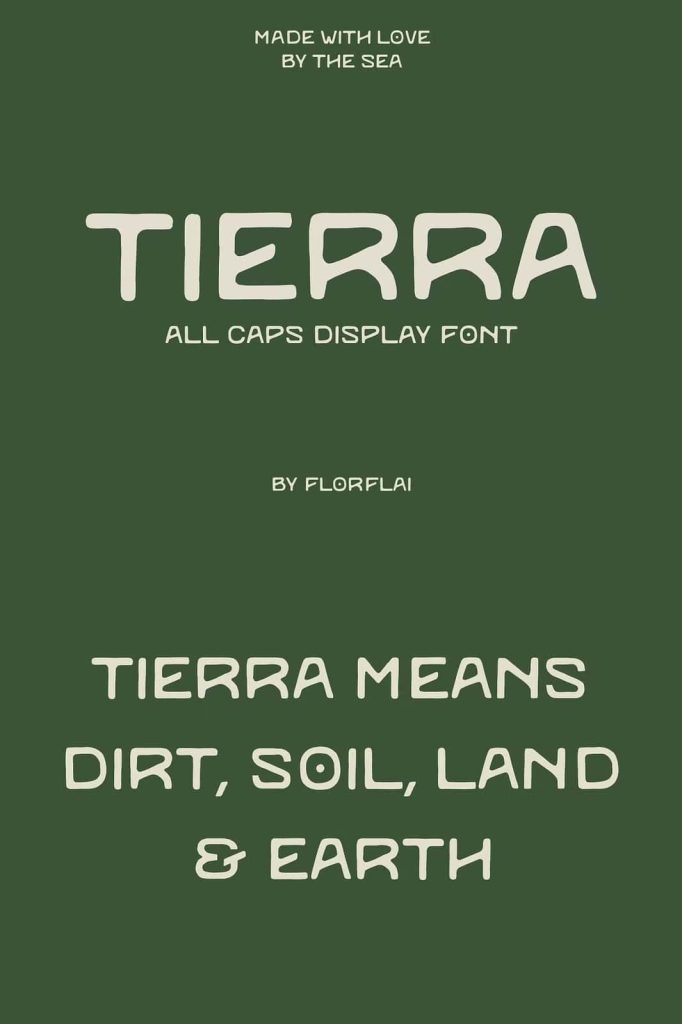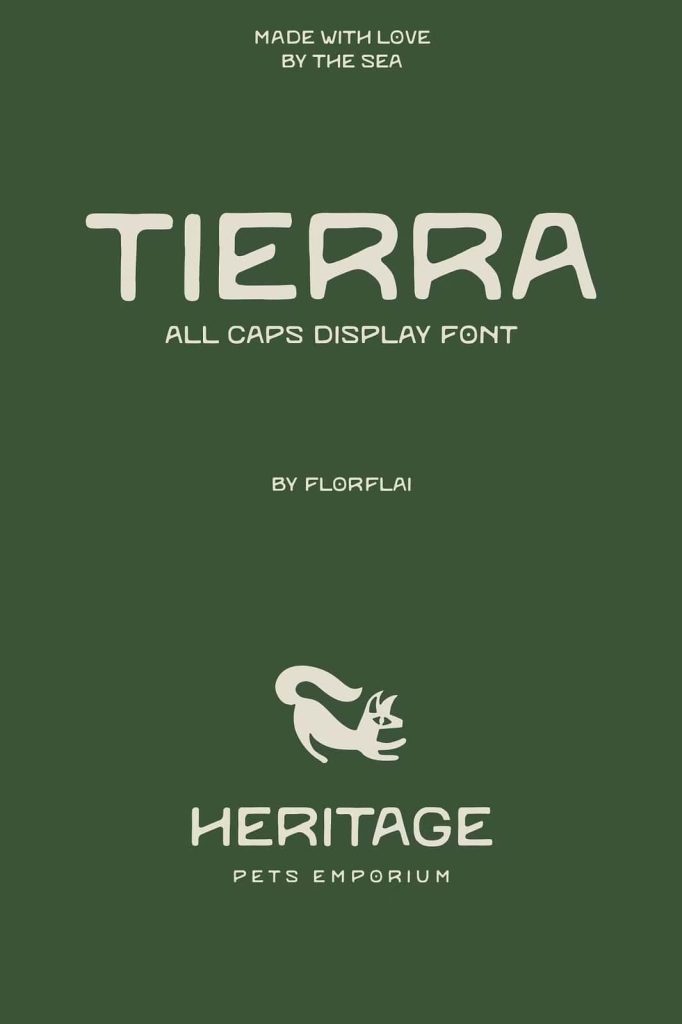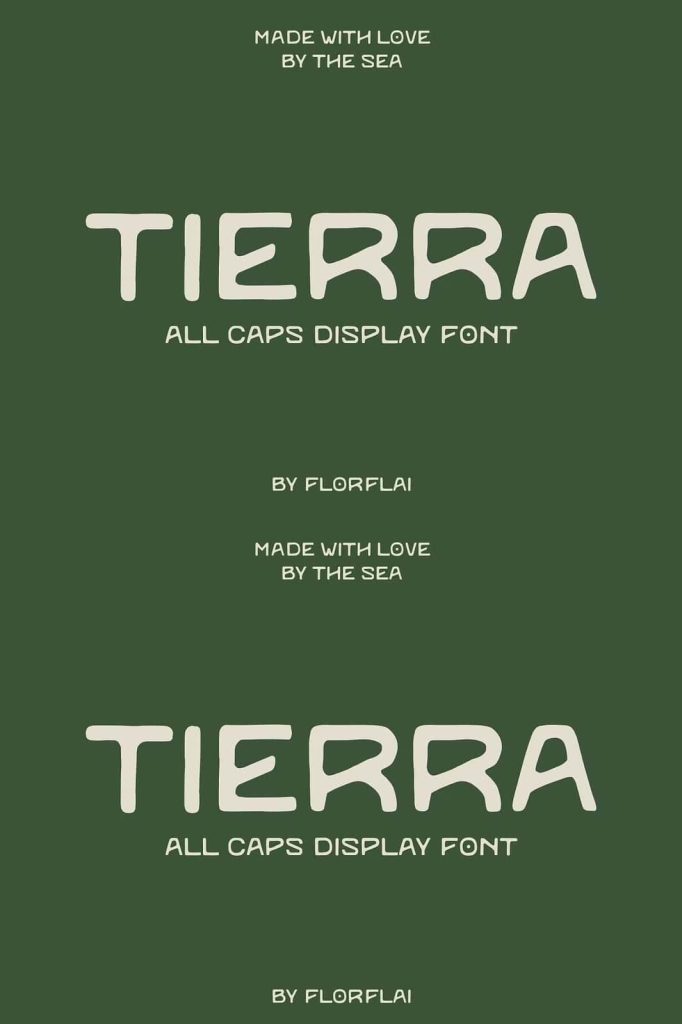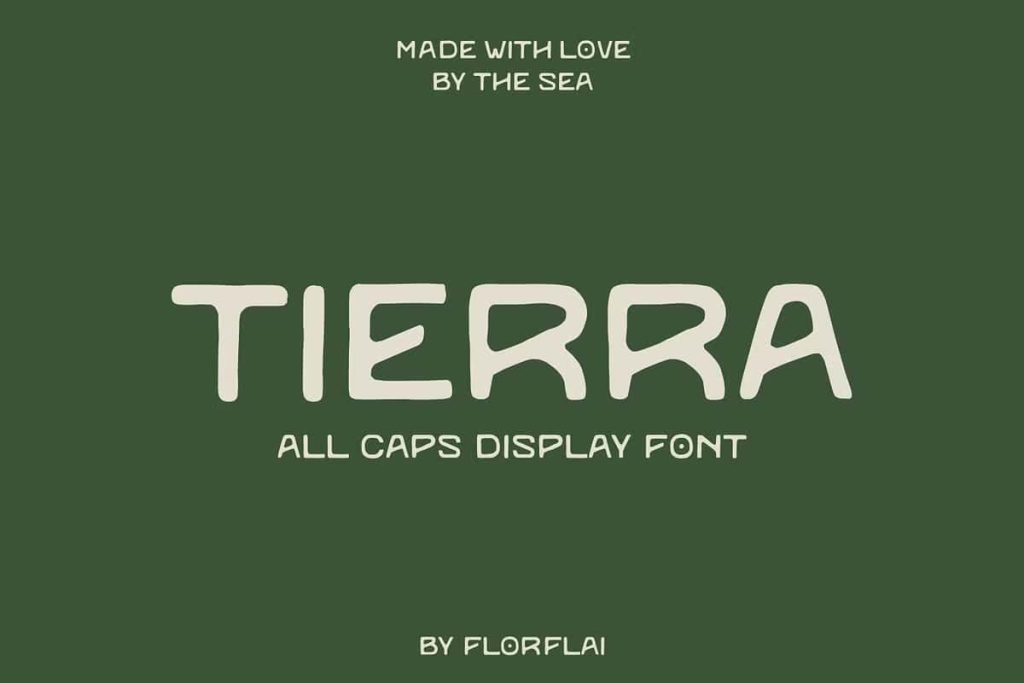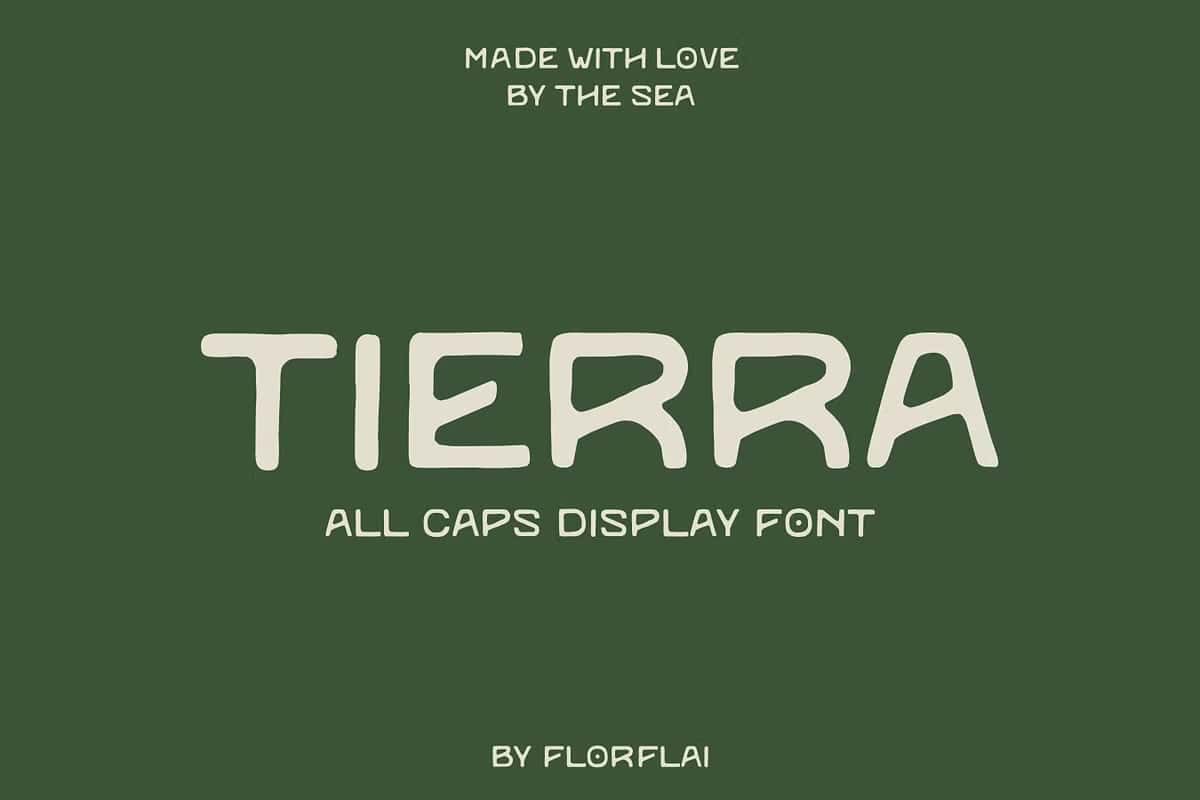
Tierra Display Font – Organic Sans Serif Typeface Inspired by Nature
Tierra is a unique display font that captures the raw beauty and grounded essence of nature. The word “tierra,” which means earth, land, soil, and dirt in Spanish, perfectly represents the personality and visual identity of this typeface. Designed with a balance of simplicity and organic detail, Tierra brings a natural and authentic atmosphere into modern typography.
This sans serif font combines clean letterforms with subtle irregular textures that mirror the imperfect beauty found in soil, stone, and natural landscapes. Every character carries a handcrafted appearance that feels warm, earthy, and approachable while still maintaining strong readability. Tierra creates a visual connection between modern design and the organic world, making it a versatile option for creative professionals who want typography with character and depth.
Natural and Authentic Typography Style
Tierra stands out through its organic construction and carefully crafted imperfections. Unlike overly polished display fonts, Tierra introduces gentle variations and natural curves that create a more human and grounded visual experience. These details add personality without sacrificing clarity, allowing designers to create bold statements while maintaining a clean and professional appearance.
The font delivers a minimalist aesthetic with a rustic edge, making it highly suitable for projects that aim to communicate sustainability, authenticity, craftsmanship, and environmental awareness. Tierra creates a calm and natural tone that works beautifully across both digital and print media.
Perfect for Branding and Creative Projects
Tierra display font works exceptionally well for branding projects that require a modern yet organic identity. Its earthy personality helps businesses and creators establish a stronger emotional connection with audiences who appreciate natural aesthetics and authentic storytelling.
Designers can use Tierra for eco-friendly brands, sustainable packaging, organic product labels, artisanal businesses, cafes, outdoor campaigns, lifestyle products, environmental organizations, and creative editorial layouts. The font also performs effectively in posters, social media graphics, website headers, magazine covers, and promotional materials where strong visual impact is important.
Recommended Uses for Tierra Font
- Brand identity and logo design
- Eco-friendly and sustainable product packaging
- Environmental campaigns and awareness graphics
- Modern posters and editorial headlines
- Nature-inspired website designs
- Social media content and marketing visuals
- Creative merchandise and apparel graphics
- Artisan business branding and labels
Balanced Simplicity with Organic Texture
One of Tierra’s strongest qualities is its ability to balance modern simplicity with natural texture. The font does not rely on excessive decoration or complex styling. Instead, it uses refined shapes and carefully placed irregularities to create visual warmth and authenticity. This design approach allows Tierra to remain versatile while still offering a distinctive identity.
Its sans serif foundation ensures readability and adaptability, while the subtle handcrafted influence introduces originality and emotional appeal. Designers can confidently use Tierra in large display sizes for headlines and titles where the font’s natural characteristics become even more visible and expressive.
Create Strong Visual Identity with Tierra
Tierra helps brands and creative projects communicate honesty, connection, and natural beauty. In a design landscape filled with generic typefaces, Tierra offers a refreshing alternative that feels grounded and meaningful. The font encourages designers to create visuals that feel authentic, modern, and emotionally engaging.
Whether you are building a sustainable brand, designing environmental graphics, or creating artistic promotional materials, Tierra provides the perfect combination of contemporary design and earthy inspiration. Its organic imperfections and minimalist structure allow it to adapt to a wide range of creative directions while maintaining a memorable visual presence.
With its natural personality, modern sans serif style, and earthy influence, Tierra display font becomes more than just a typeface. It becomes a visual expression of authenticity, creativity, and connection to the natural world.